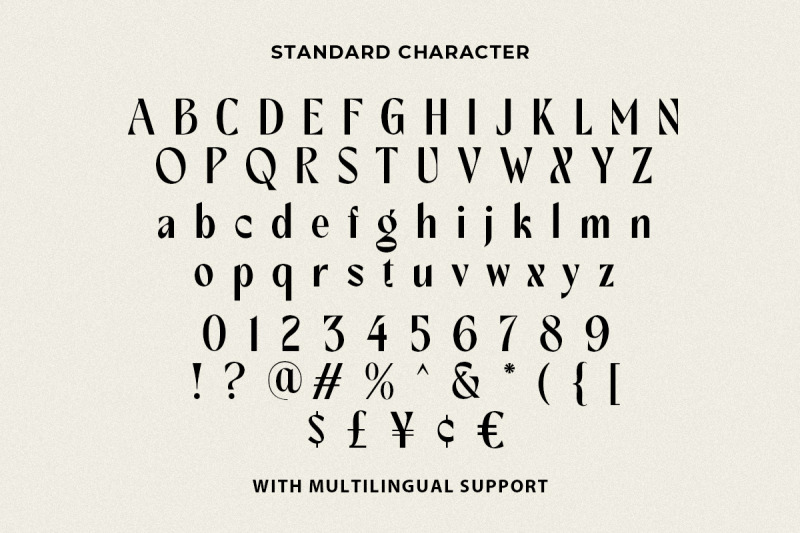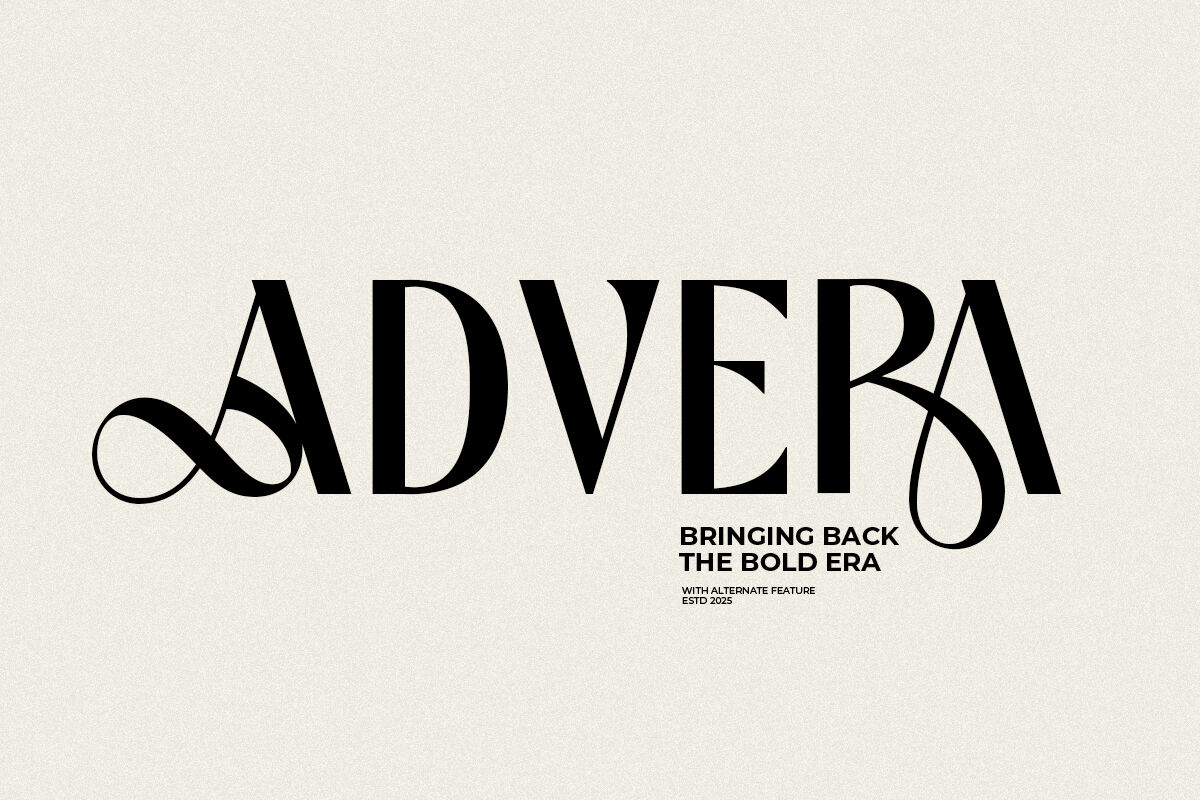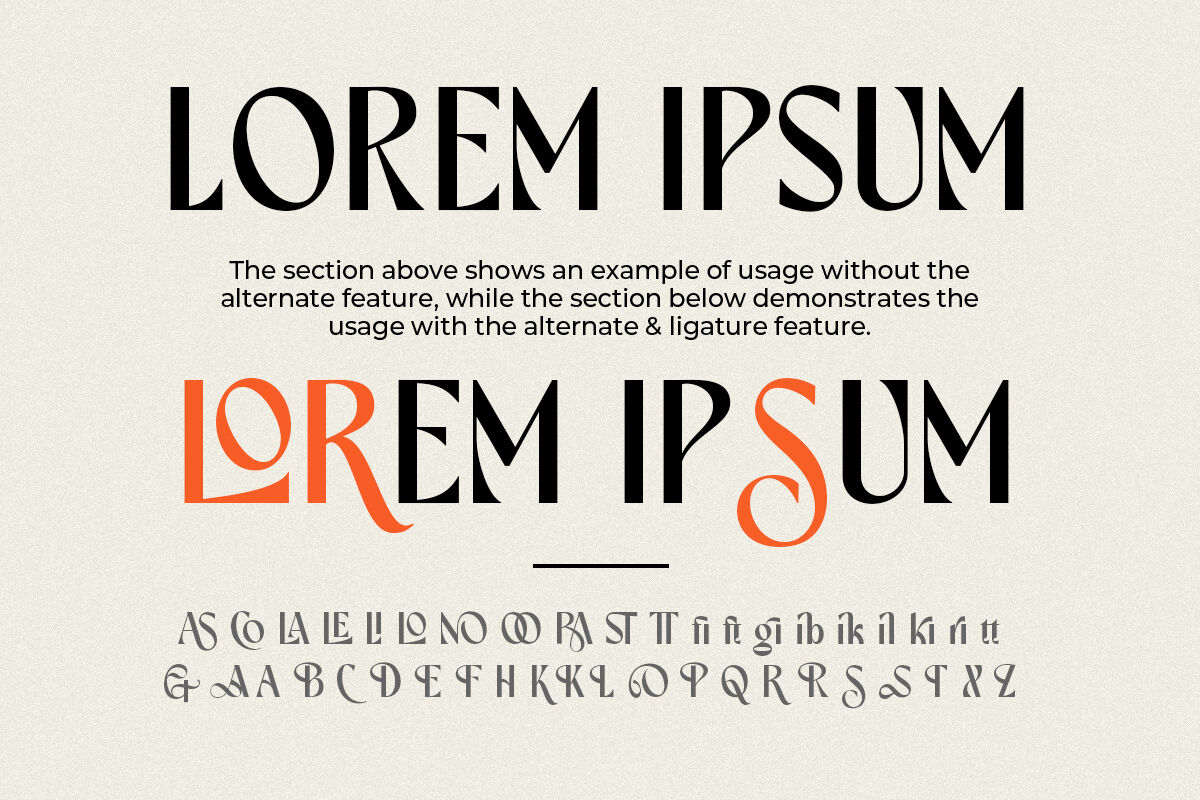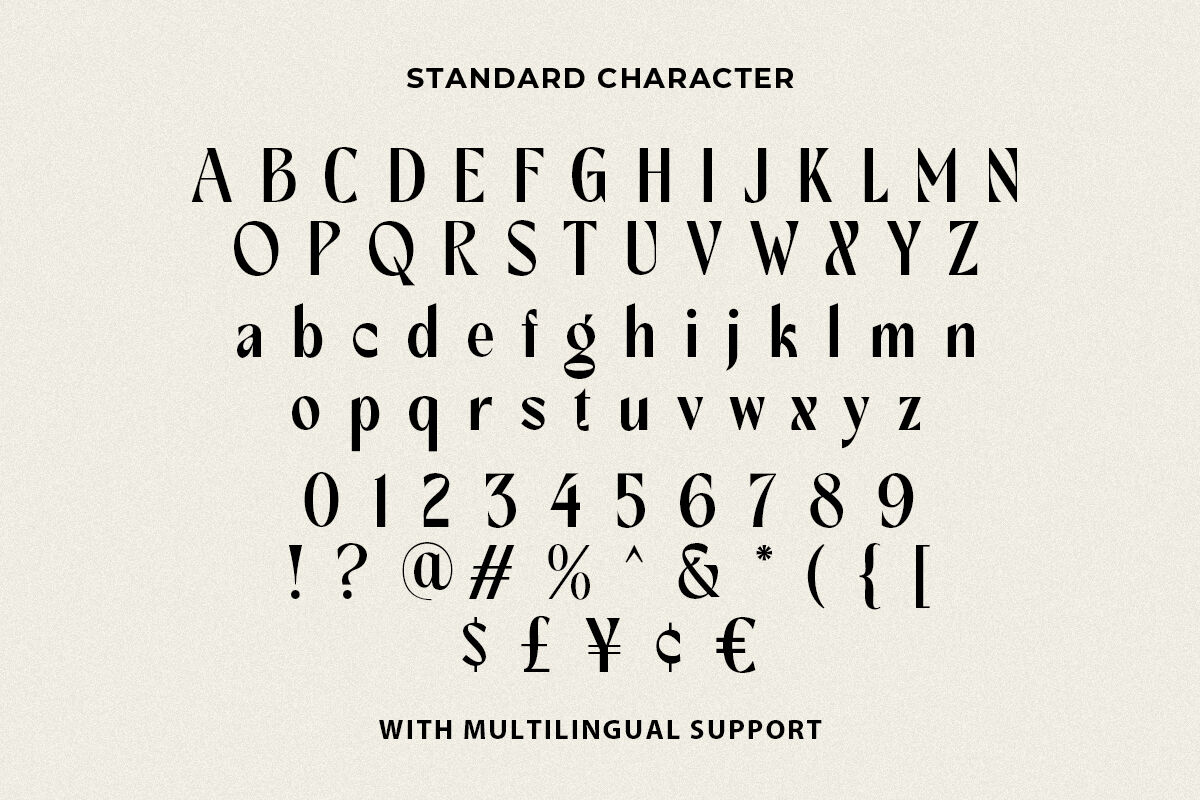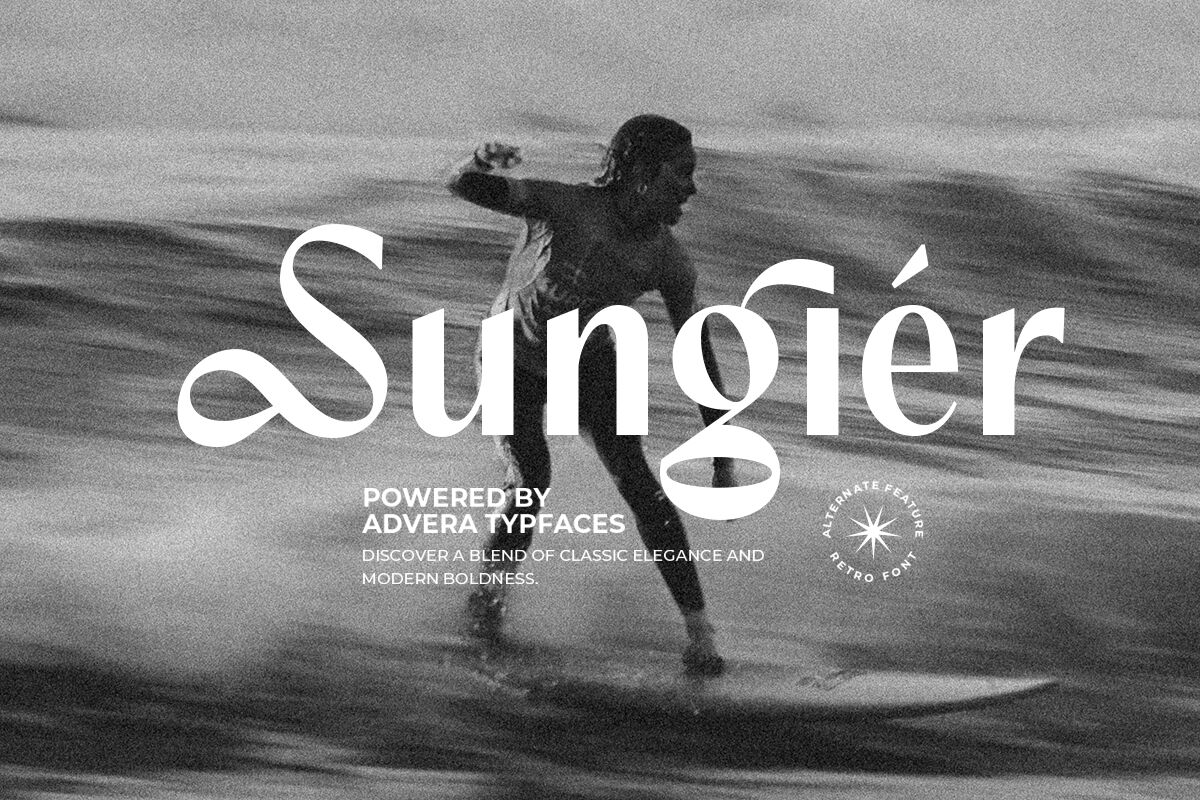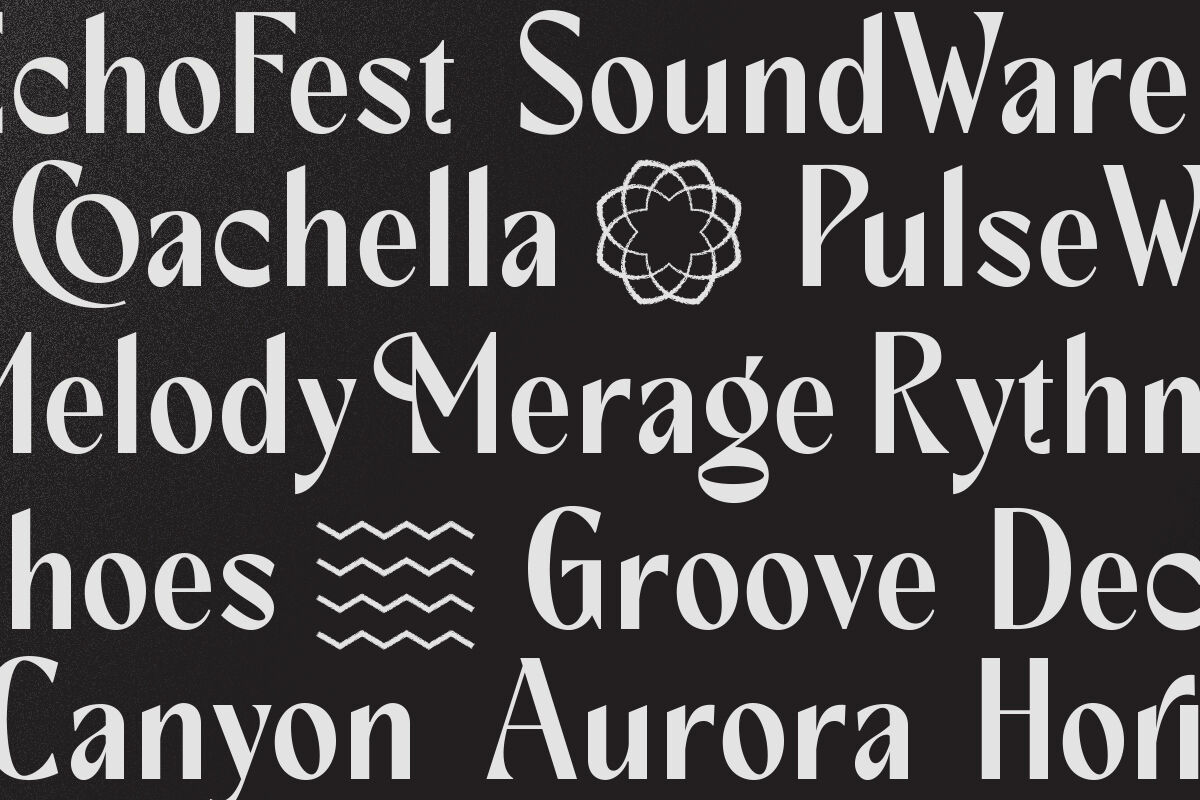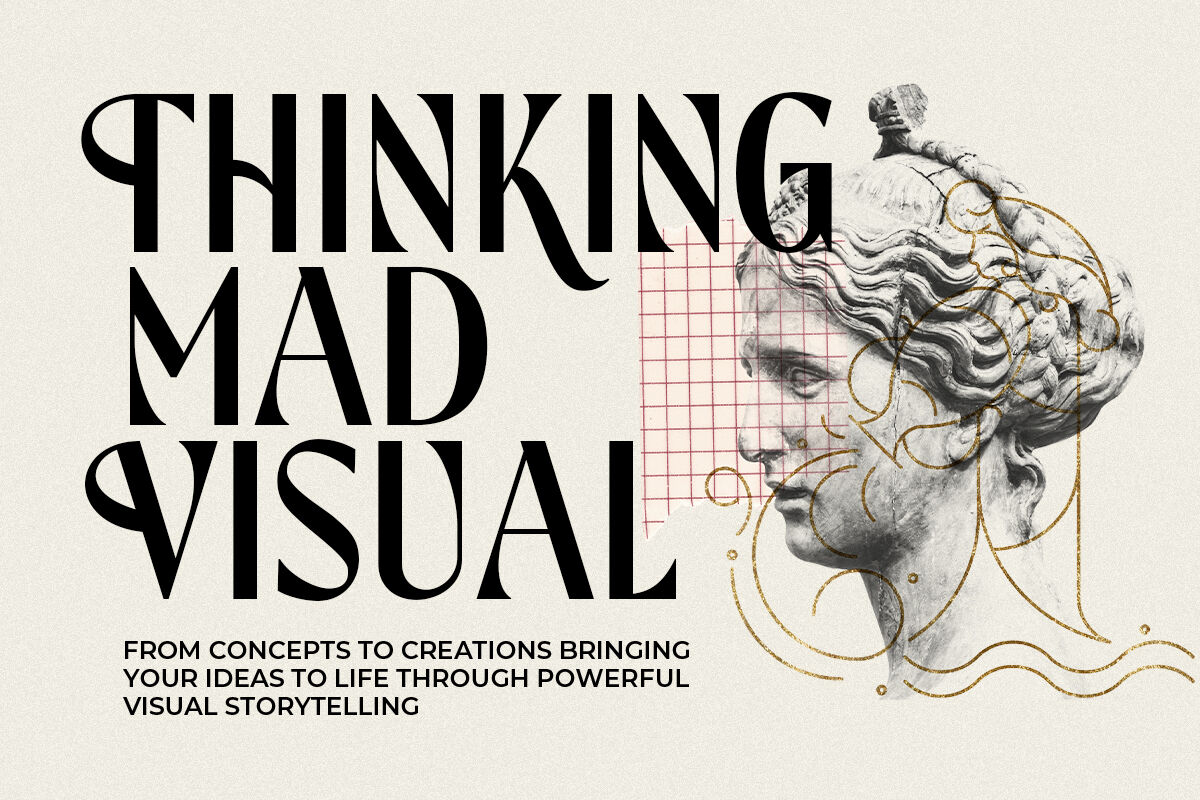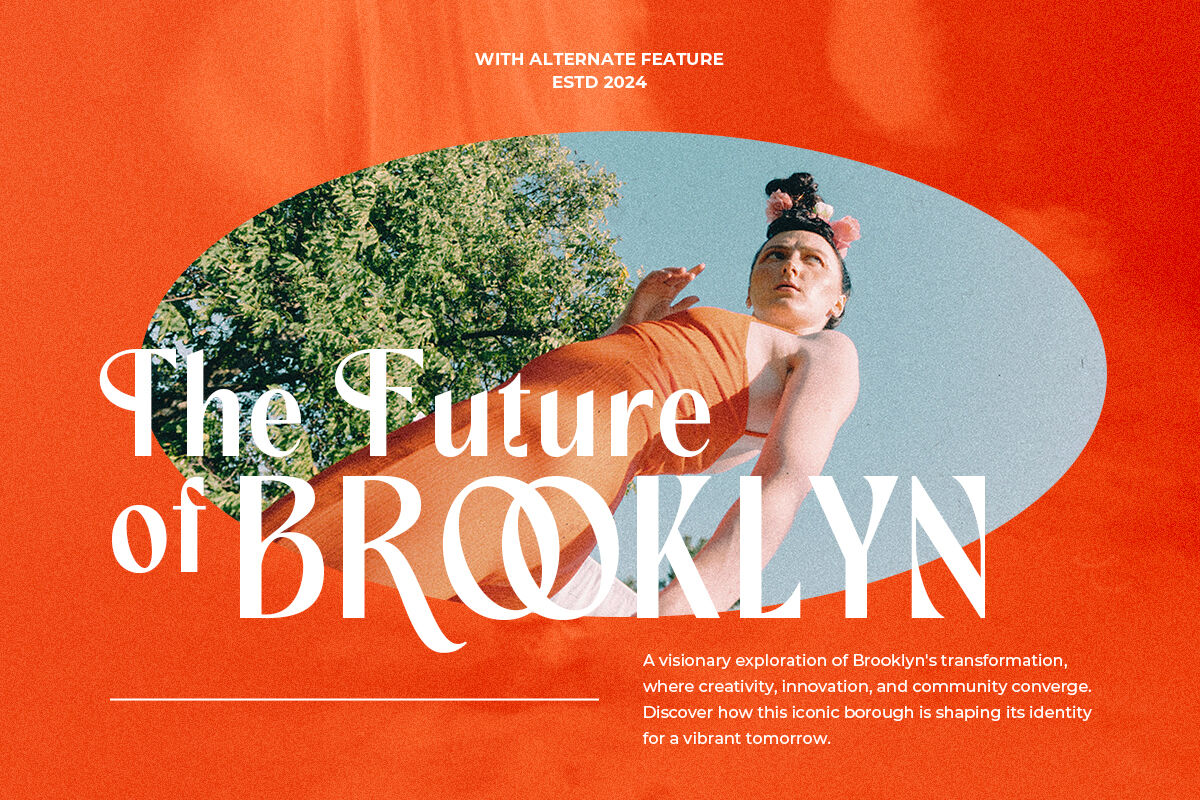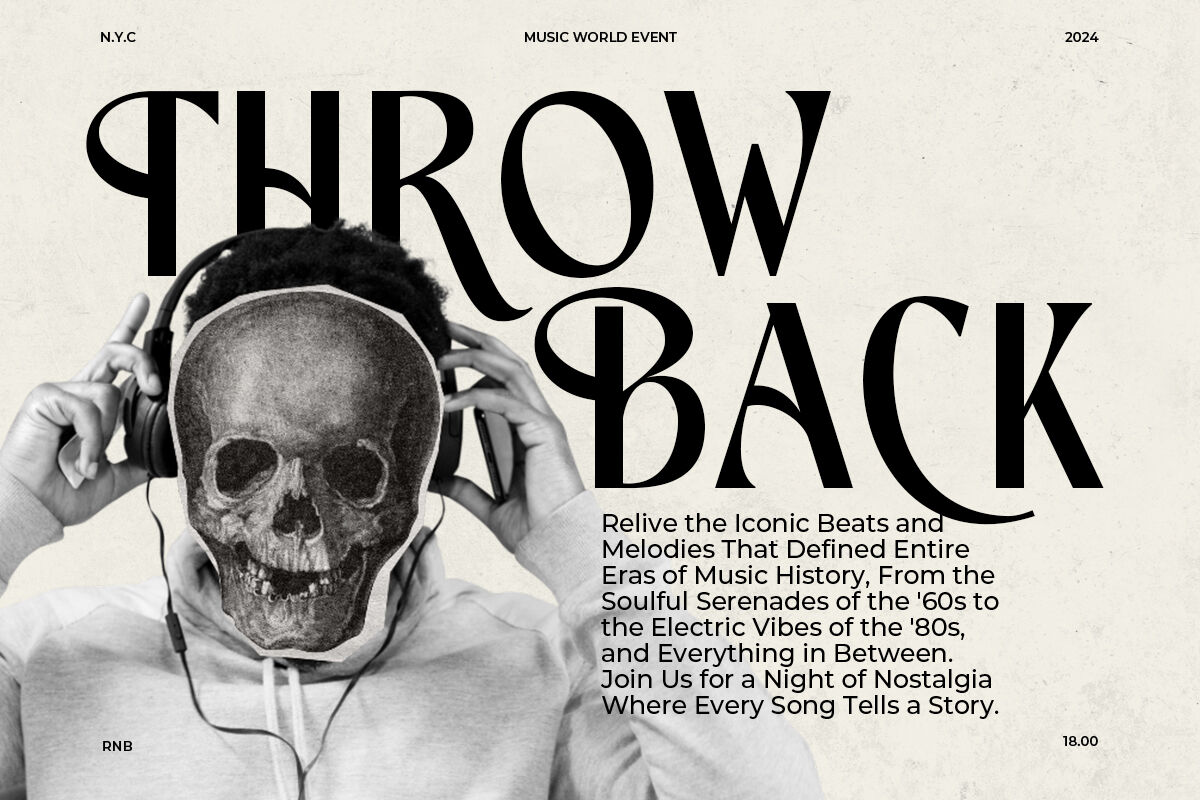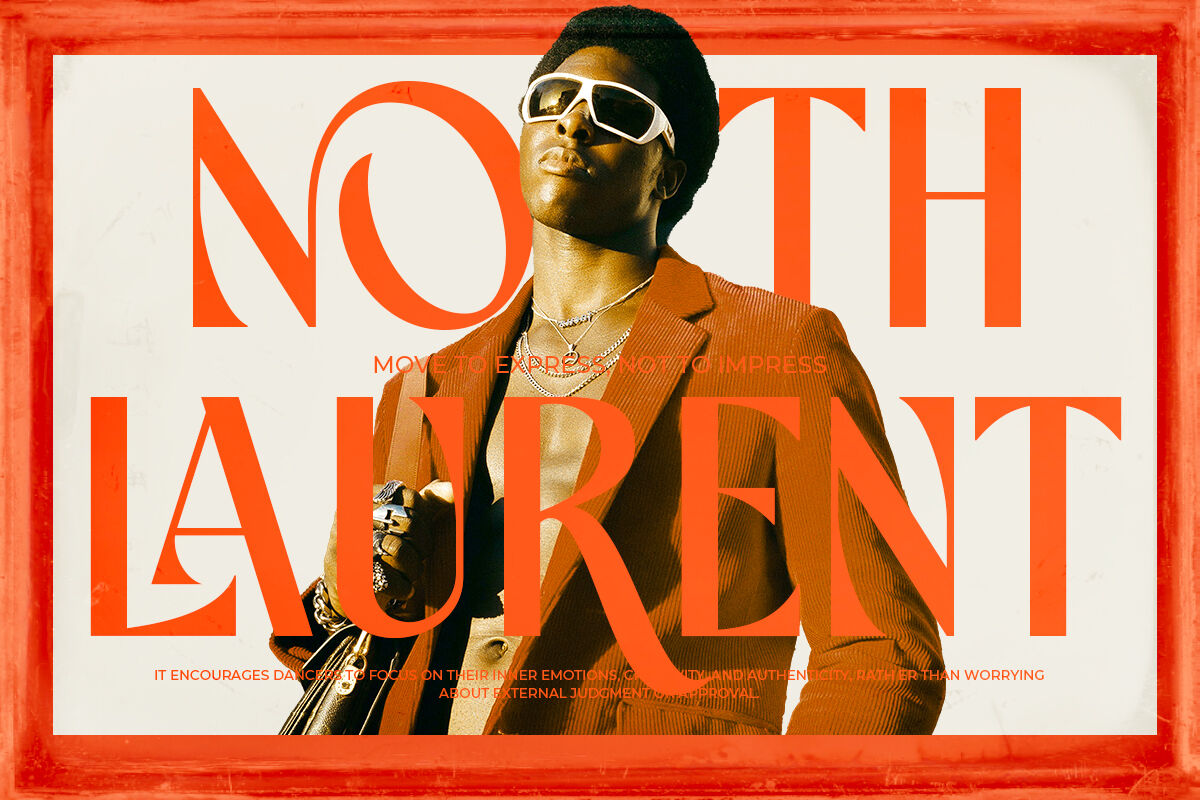
Advera - Bold Display Font
Advera is a display font sans based with alternates and ligatures. With unique and strong looks, this font will make your design more stunning and stand out. You can use this font for branding, logotype, quotes, etc. Advera also support multi language.